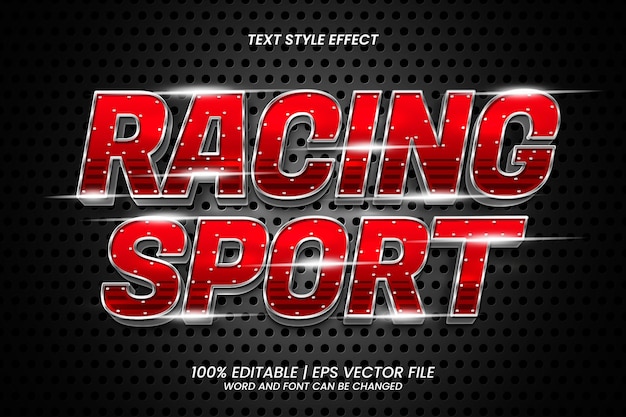
racing editable text effect, lettering typography font style, games 3d text for tittle
Racing editable text effect, lettering typography font style, games 3d text for tittle